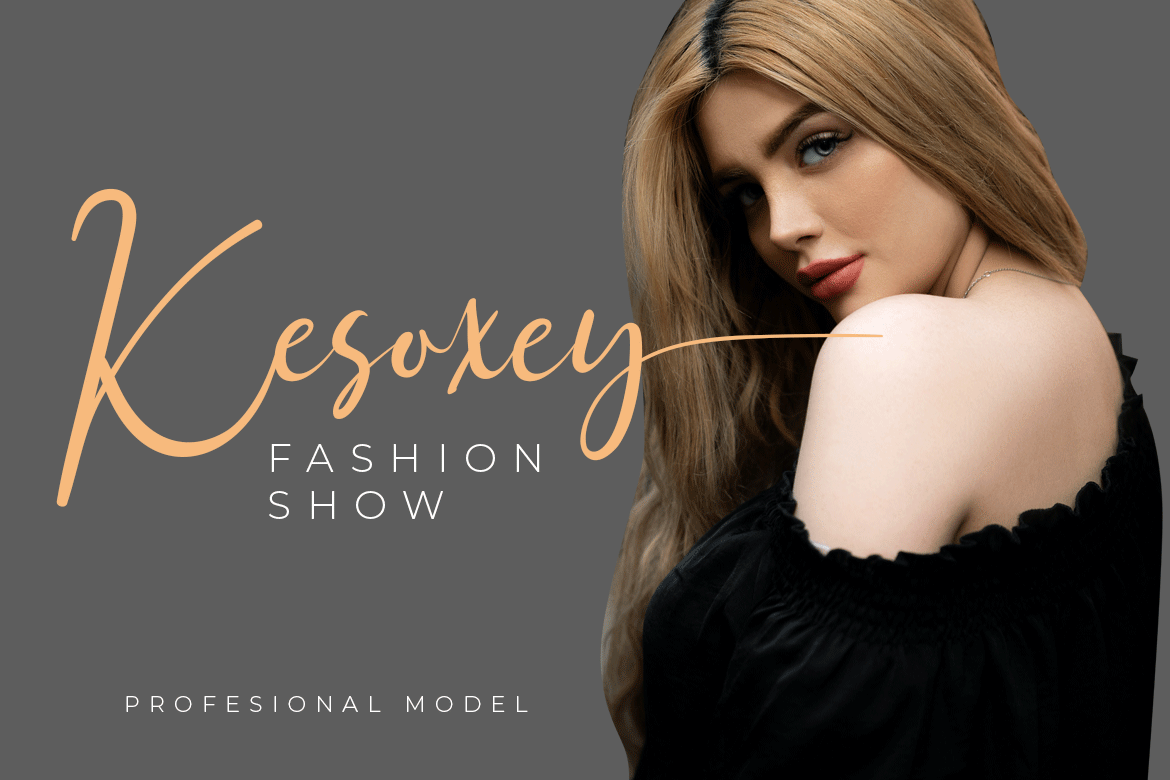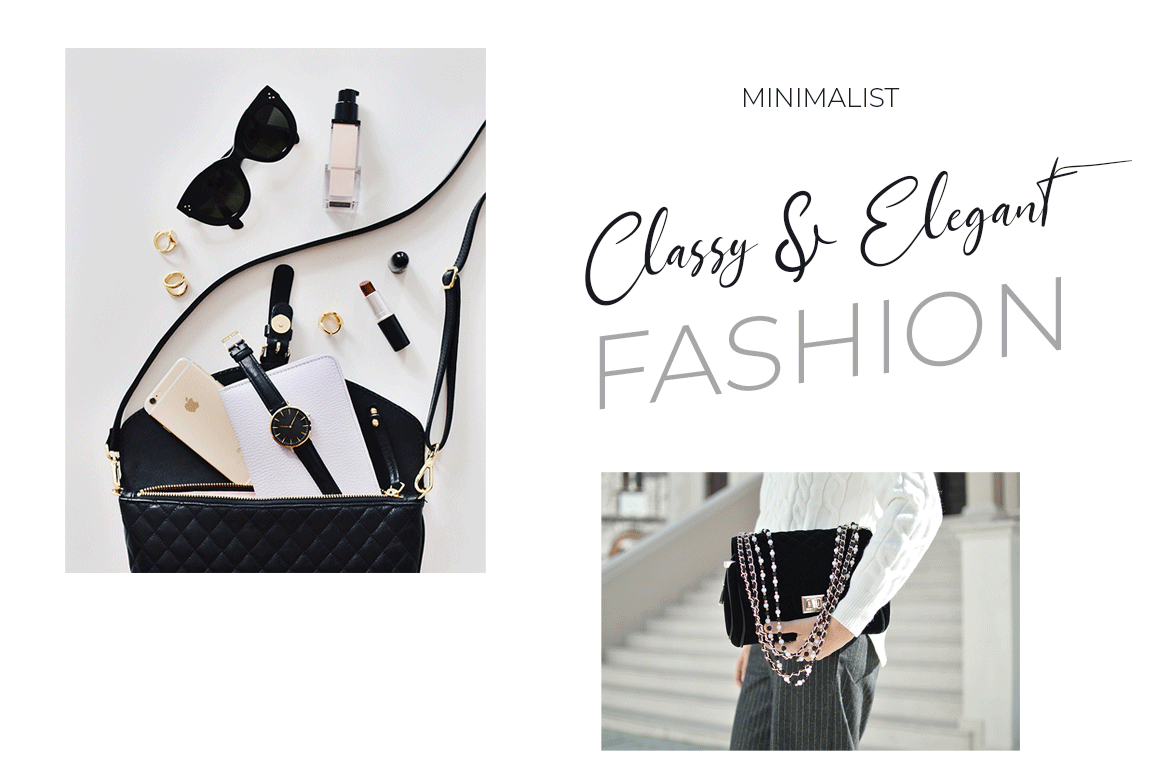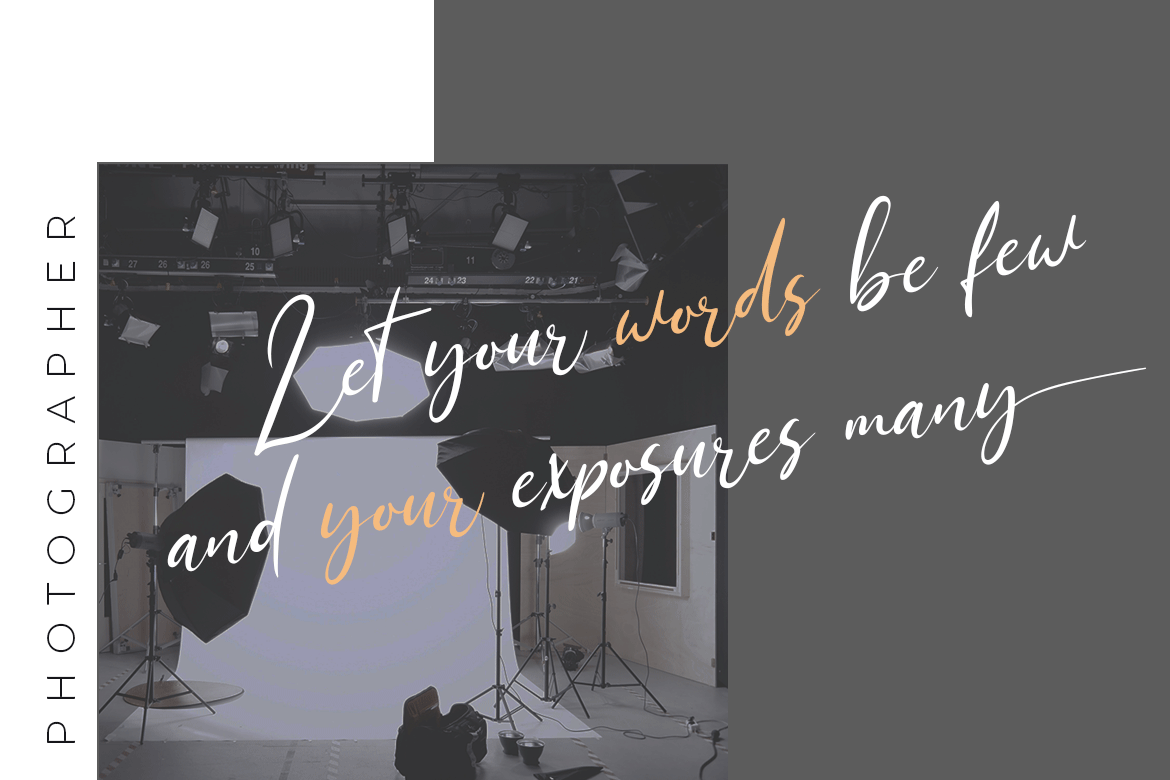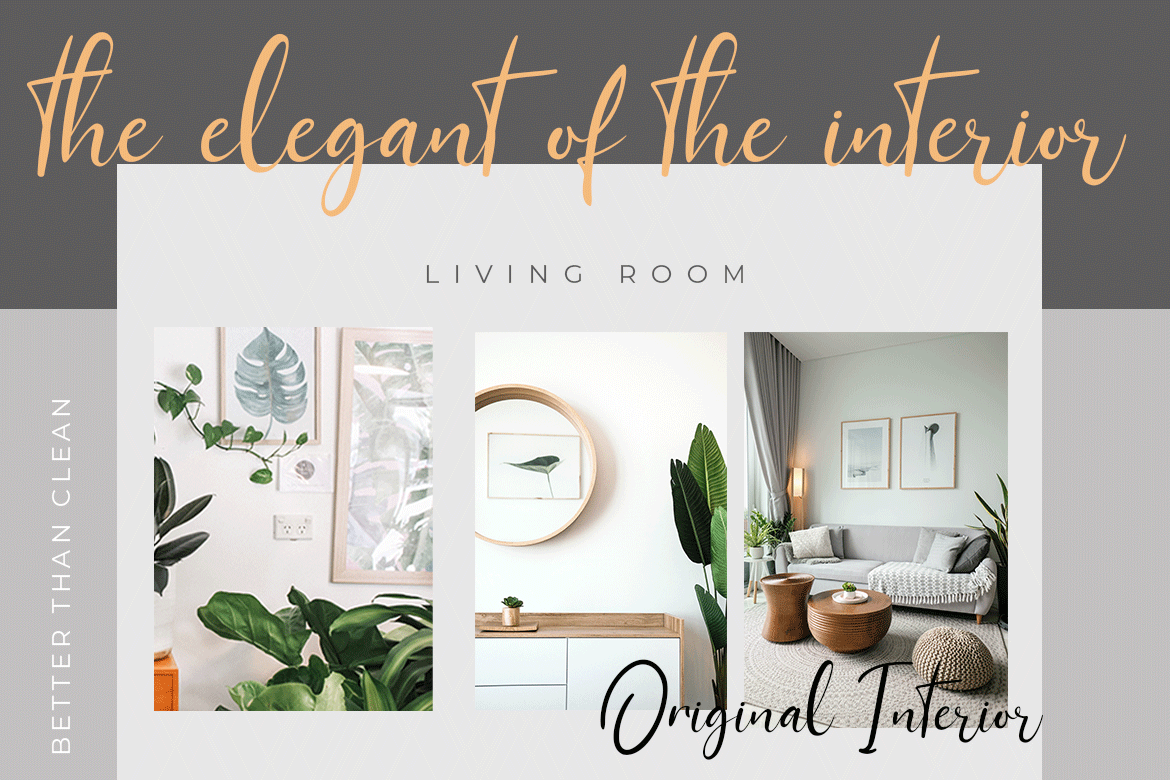
Sethasso Font
Sethasso Calligraphy Font
This is a lovely and delicate script font that exudes elegance and class. It is PUA encoded which means you can access all of the glyphs and swashes with ease! This font was particularly crafted for those who need a beautiful and refreshing look to their designs.